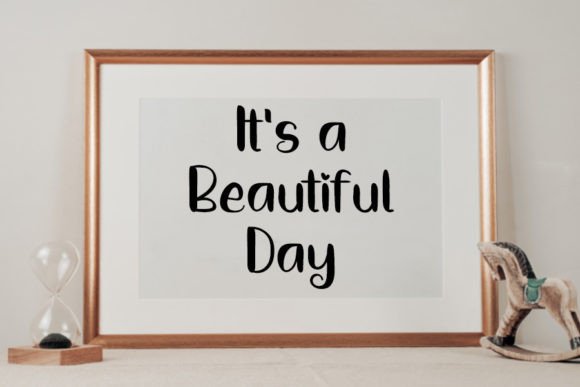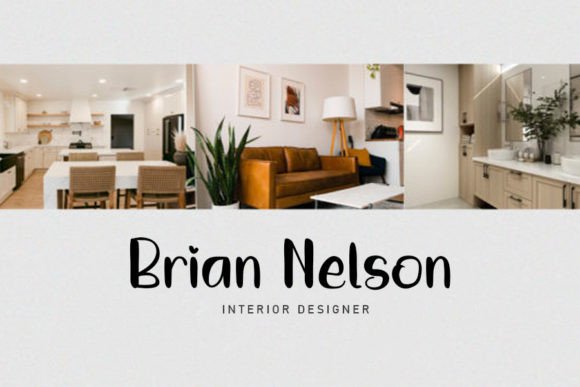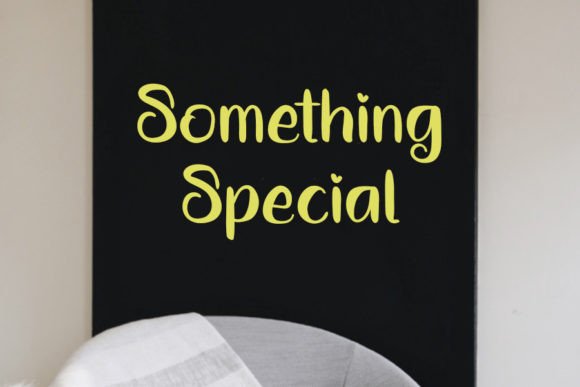
Samantha Font
Samantha Handwritten Font – Stylish Romantic Typeface
The Samantha Handwritten Font is a stylish and romantic script typeface that brings elegance and warmth to your creative work. With its flowing strokes and delicate curves, it captures the beauty of natural handwriting. Whether you’re creating greeting cards, posters, or invitations, this font guarantees a timeless handwritten charm.
A Script Font with Romantic Style
The Samantha Handwritten Font combines smooth handwritten details with stylish elegance. Its romantic character makes it ideal for personal projects, while its readability ensures professional usability. Because of this, it adapts perfectly to both casual and formal design needs.
Perfect for Cards and Headlines
One of the best uses of the Samantha Handwritten Font is in greeting cards, love notes, and invitations. Its graceful style enhances wedding stationery, posters, and event branding. At the same time, it works beautifully for headlines and logos, giving them a personal and stylish touch.
The Samantha Handwritten Font adapts well to a wide variety of uses. From product packaging and business cards to social media graphics and digital banners, it adds a personalized handwritten look. As a result, it is a reliable choice for designers looking for versatility and elegance.
Why Designers Love Samantha Font
Designers appreciate the Samantha HandwrittenFont because it blends stylish beauty with practical readability. Its handwritten strokes bring projects to life, while its clear structure keeps designs professional. This balance makes it a must-have for creative toolkits.
In summary, the Samantha HandwrittenFont is a stylish, romantic, and versatile typeface. With its graceful strokes, easy installation, and broad usability, it is perfect for greeting cards, invitations, posters, and branding. Don’t miss the chance to download Samantha HandwrittenFont and bring elegance to your designs.